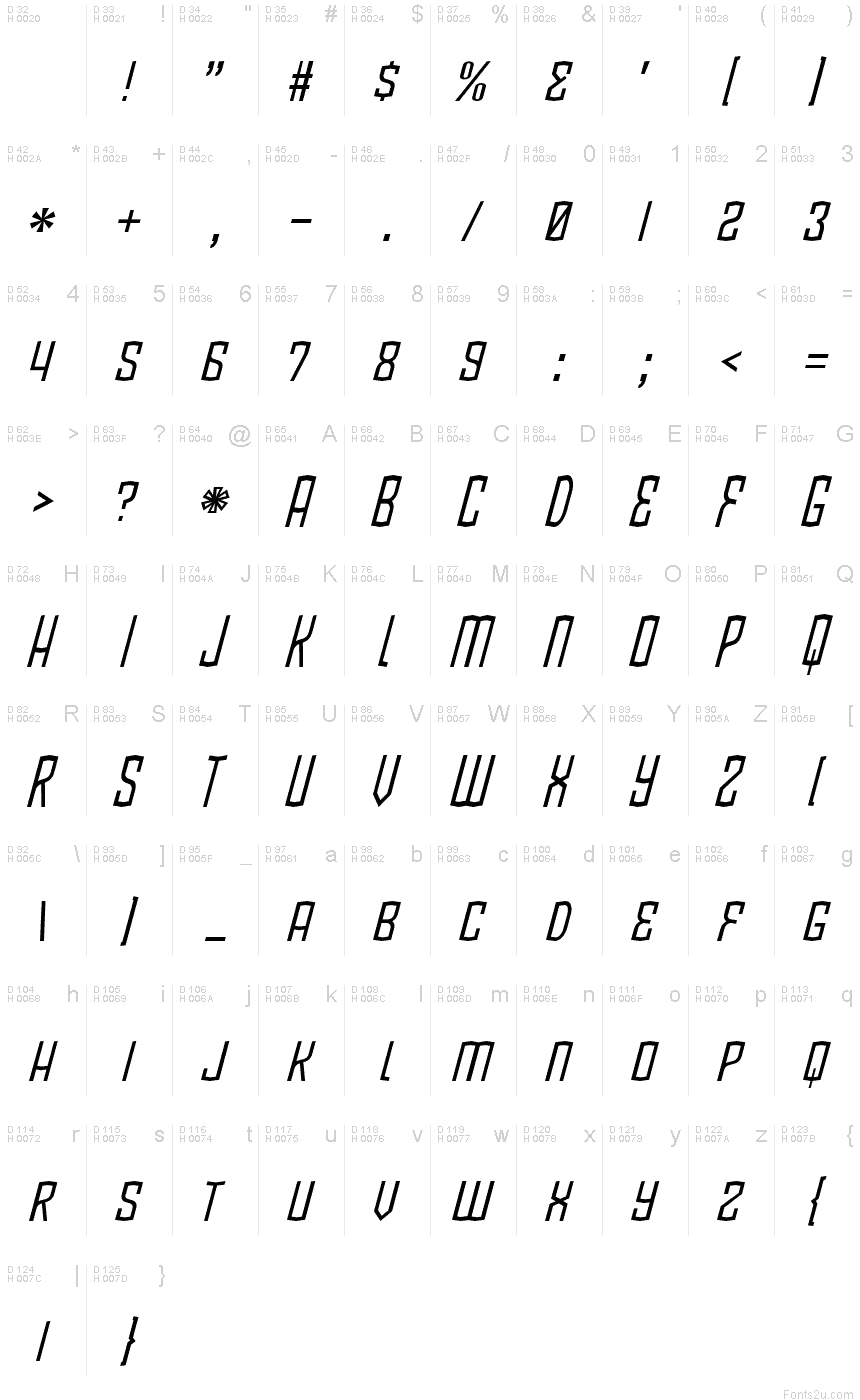
BlamDude BB Italic
BlamDude BB Italic font by Nate Piekos of Blambot is a free retro display typeface that looks like it sprinted straight out of a comic panel. The tall, lean letters are permanently in motion, with a sharp forward slant and inky, slightly rough edges that feel hand-lettered rather than mechanically drawn. It has that punchy, “BLAM!” energy you want when you need words to feel loud, fast, and fun.
Using BlamDude BB Italic, headlines snap to attention on comic covers, sound-effect callouts, superhero logos, action posters, gaming splash screens, and bold YouTube thumbnails. The spacing keeps things readable even at wild sizes, so don’t be afraid to scale it huge for maximum impact. This free font pairs nicely with a clean, neutral sans serif for body text to let its dynamic personality stay in the spotlight.